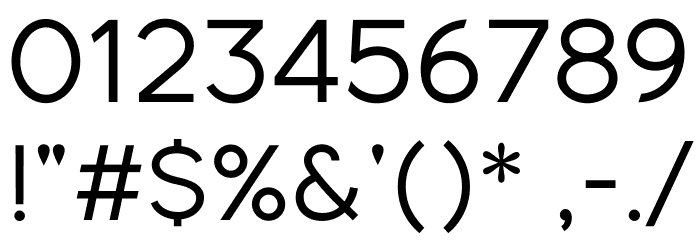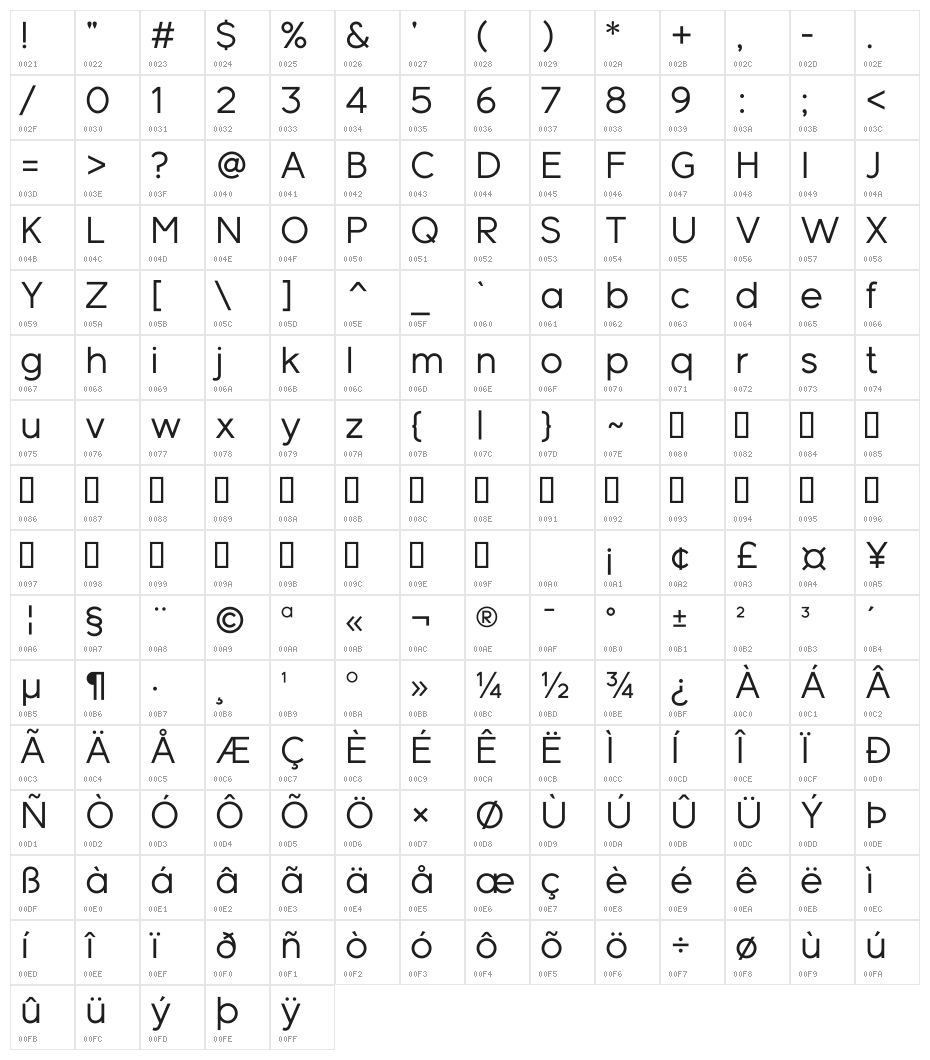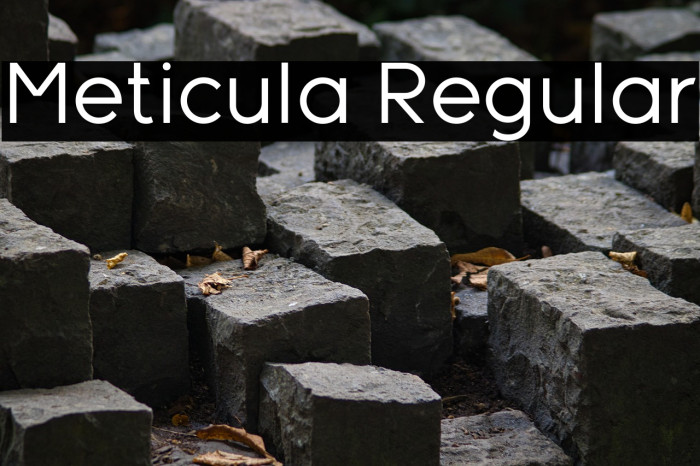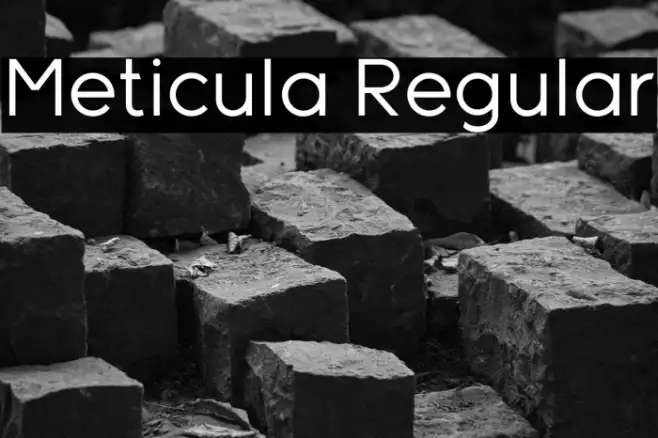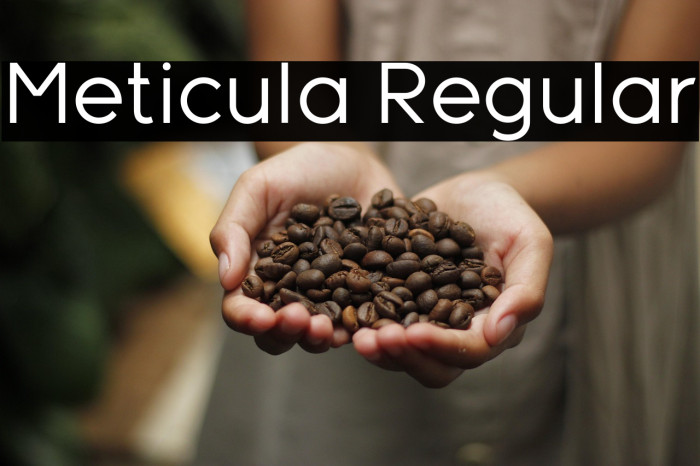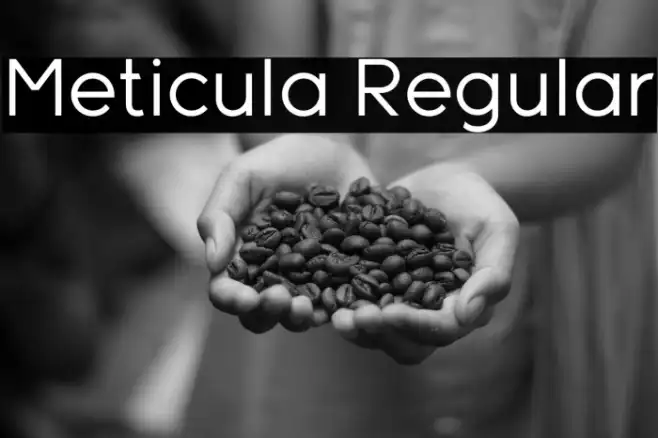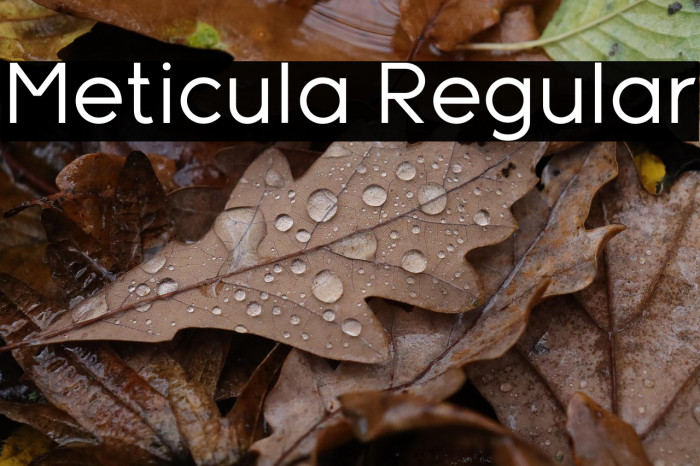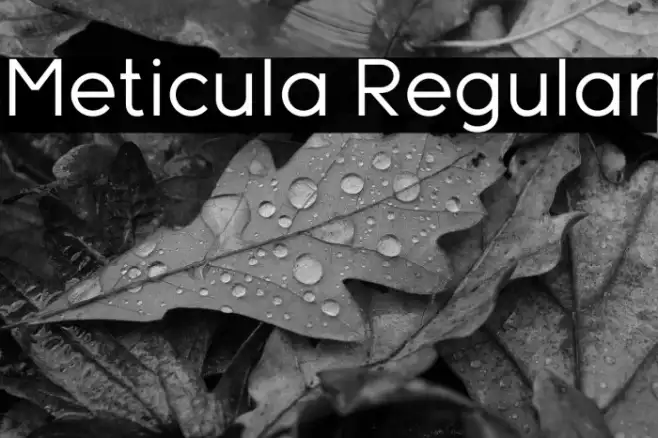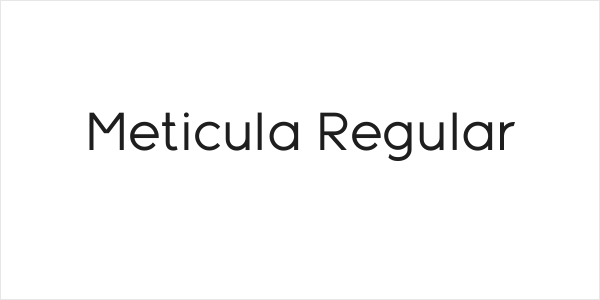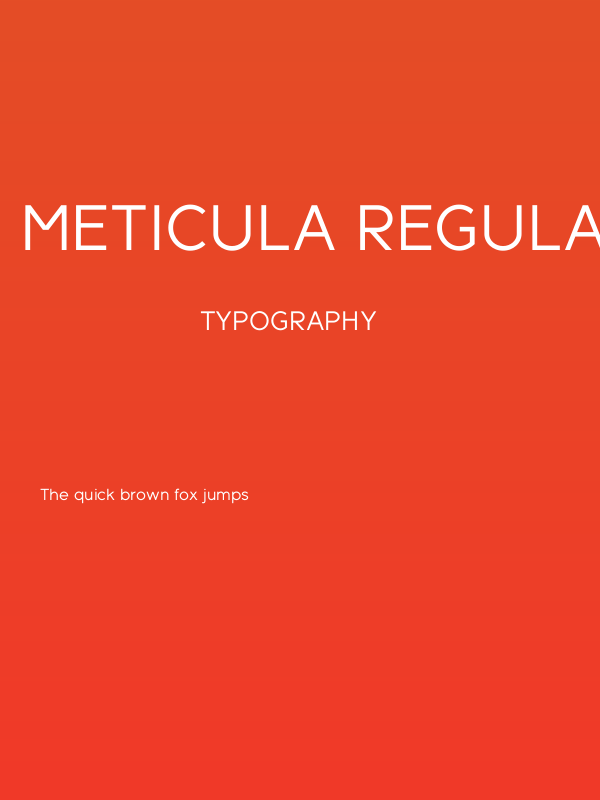
Meticula Regular Font
Meticula Regular Description
This font features a clean and modern sans-serif design with a geometric structure. The characters are evenly spaced, providing a balanced and harmonious appearance. The uppercase letters are bold and assertive, while the lowercase letters maintain a consistent height, enhancing readability. The numerals are clear and distinct, making them suitable for various applications. Special characters are well-defined, adding versatility to the font's use. Overall, this font exudes a contemporary and professional vibe, making it ideal for digital and print media.